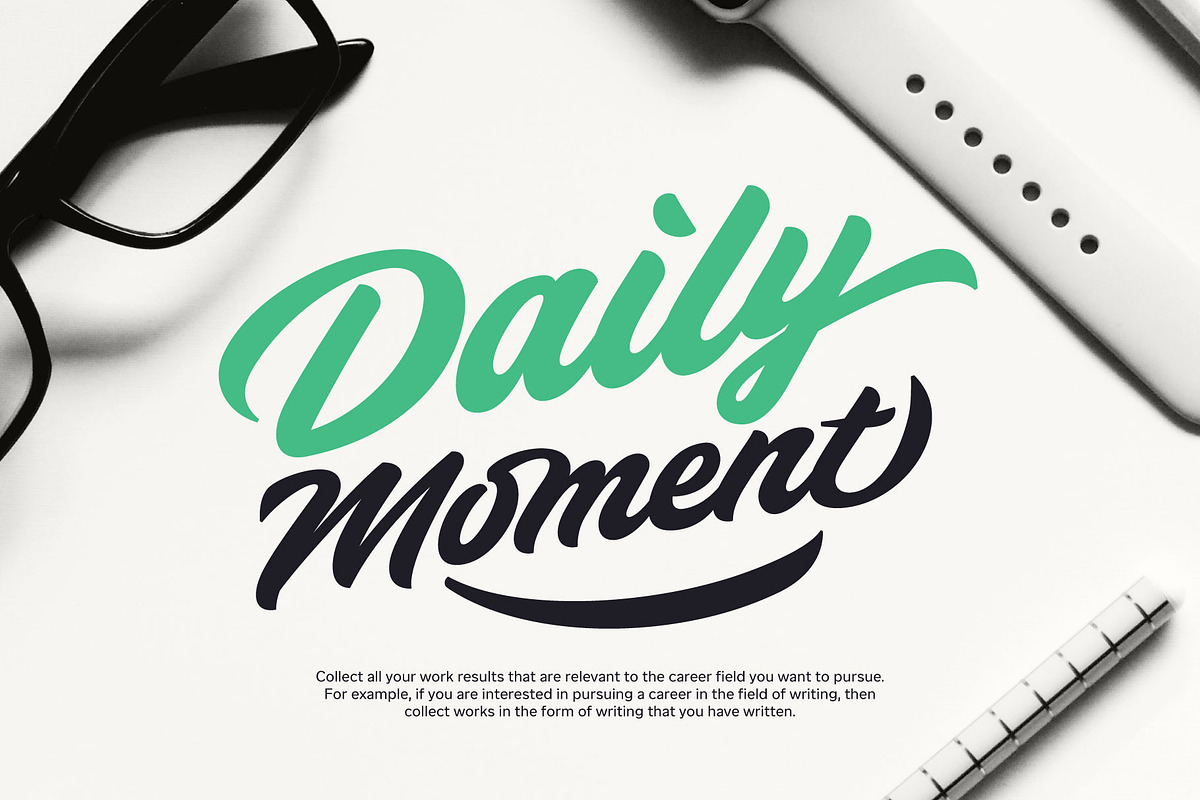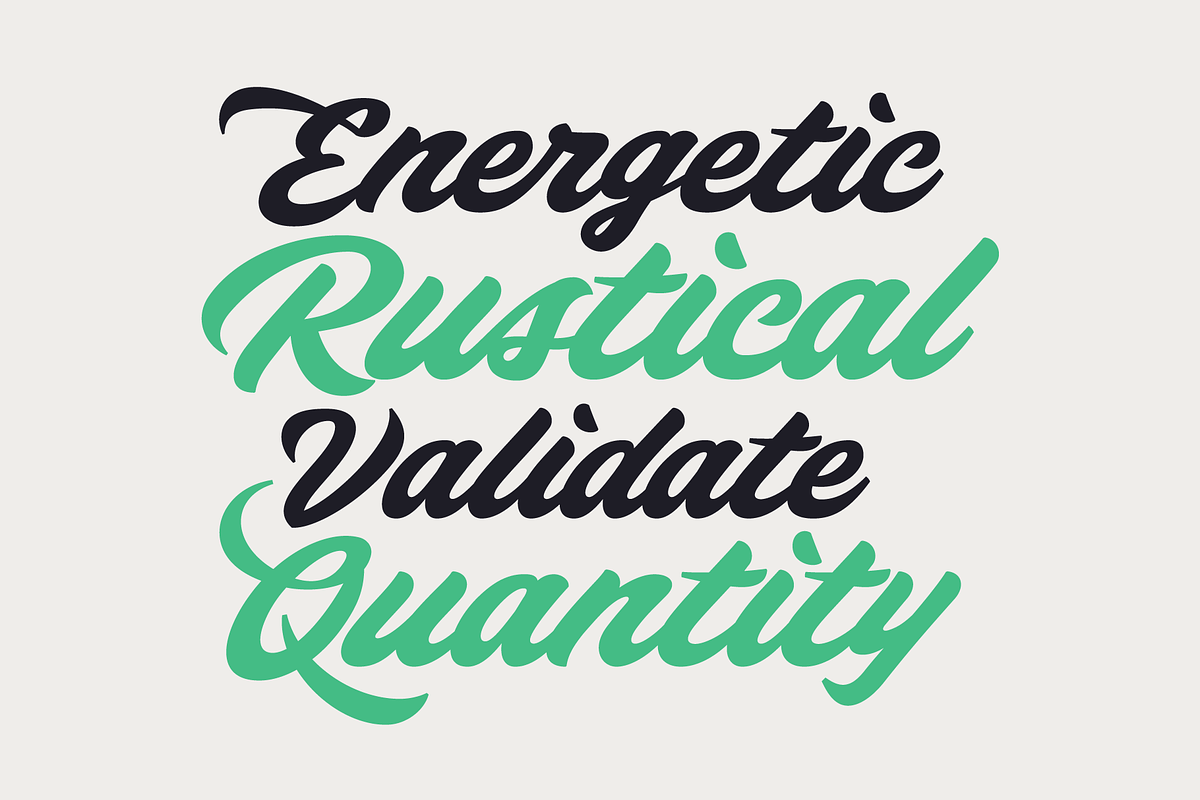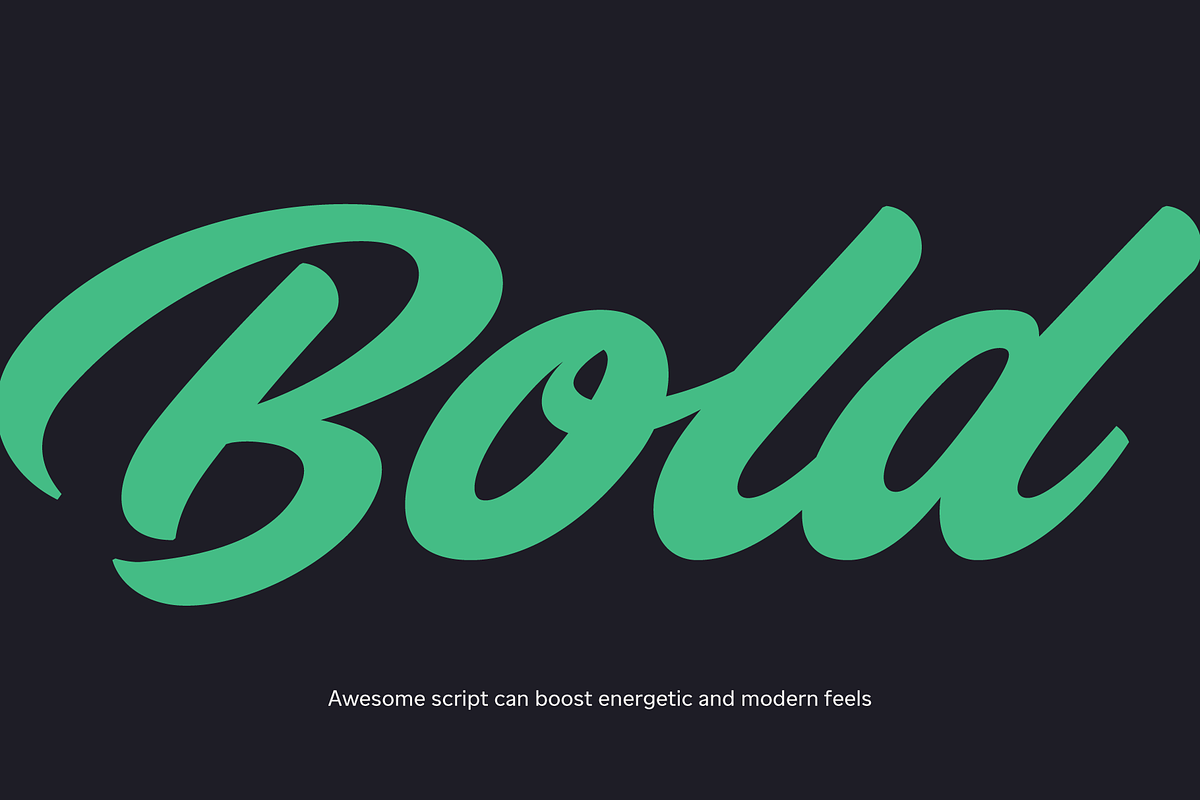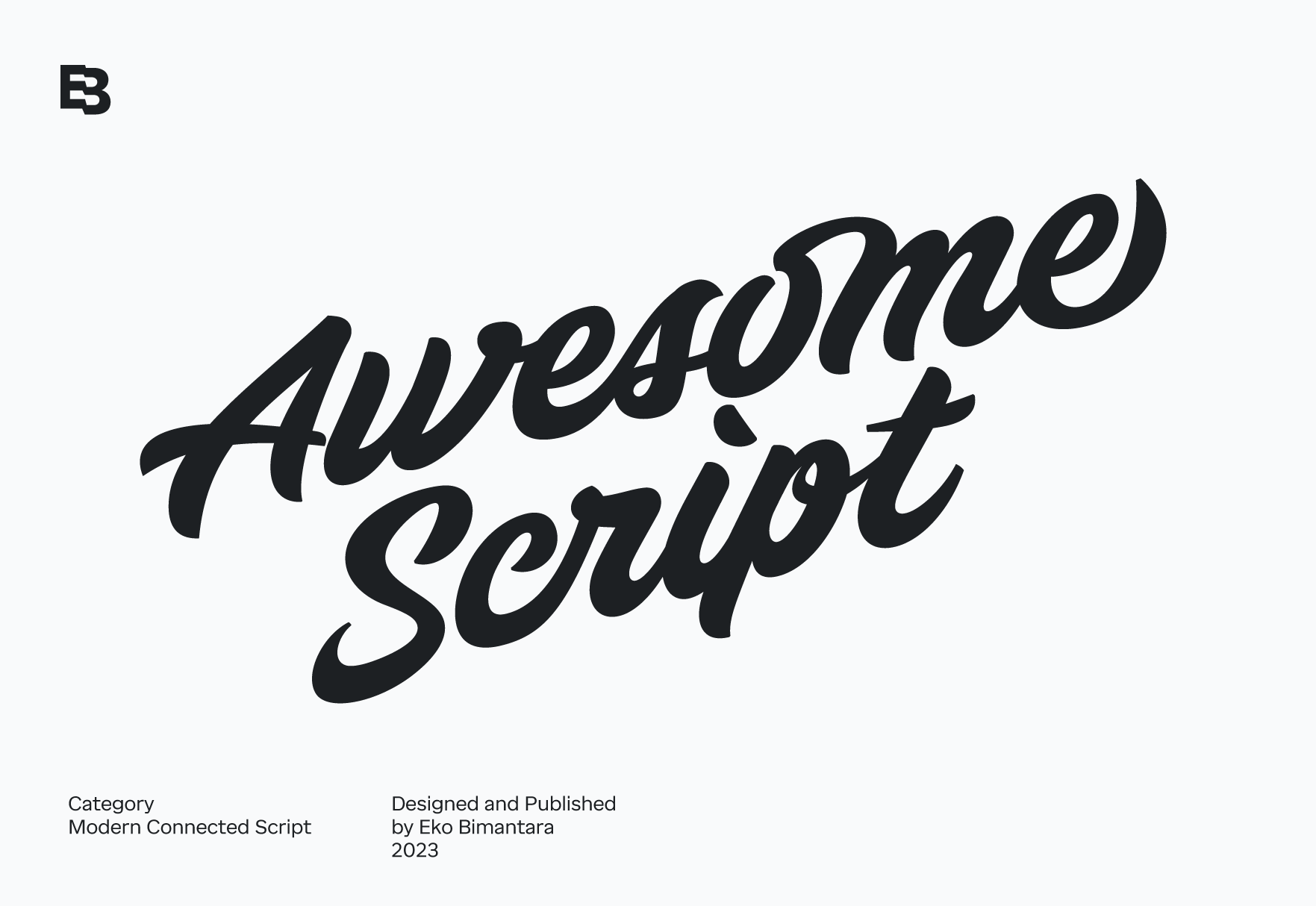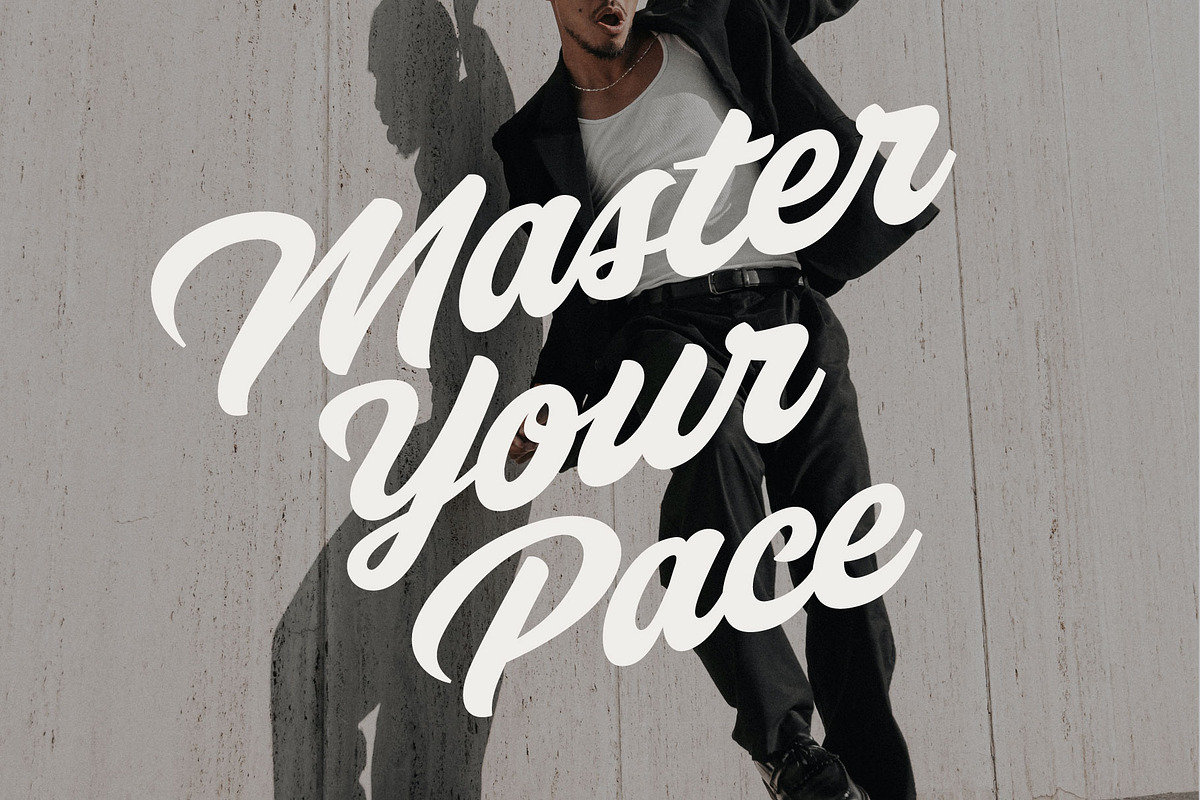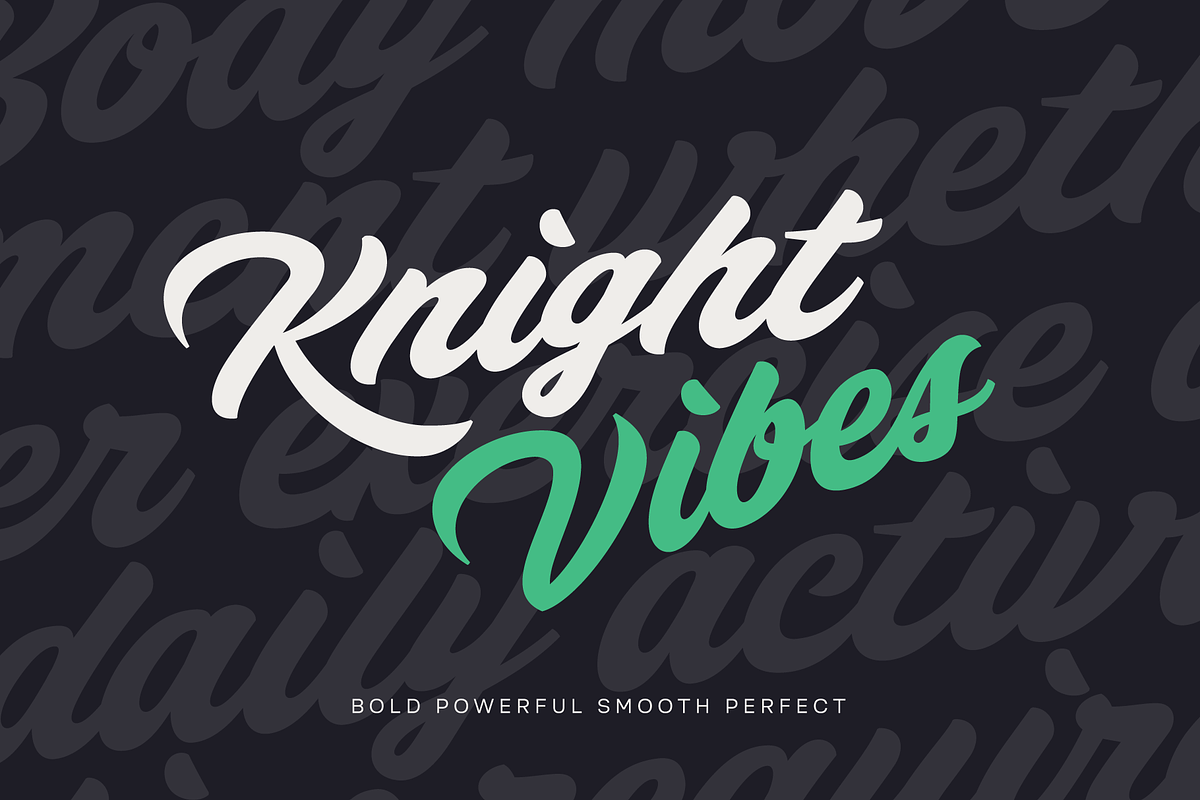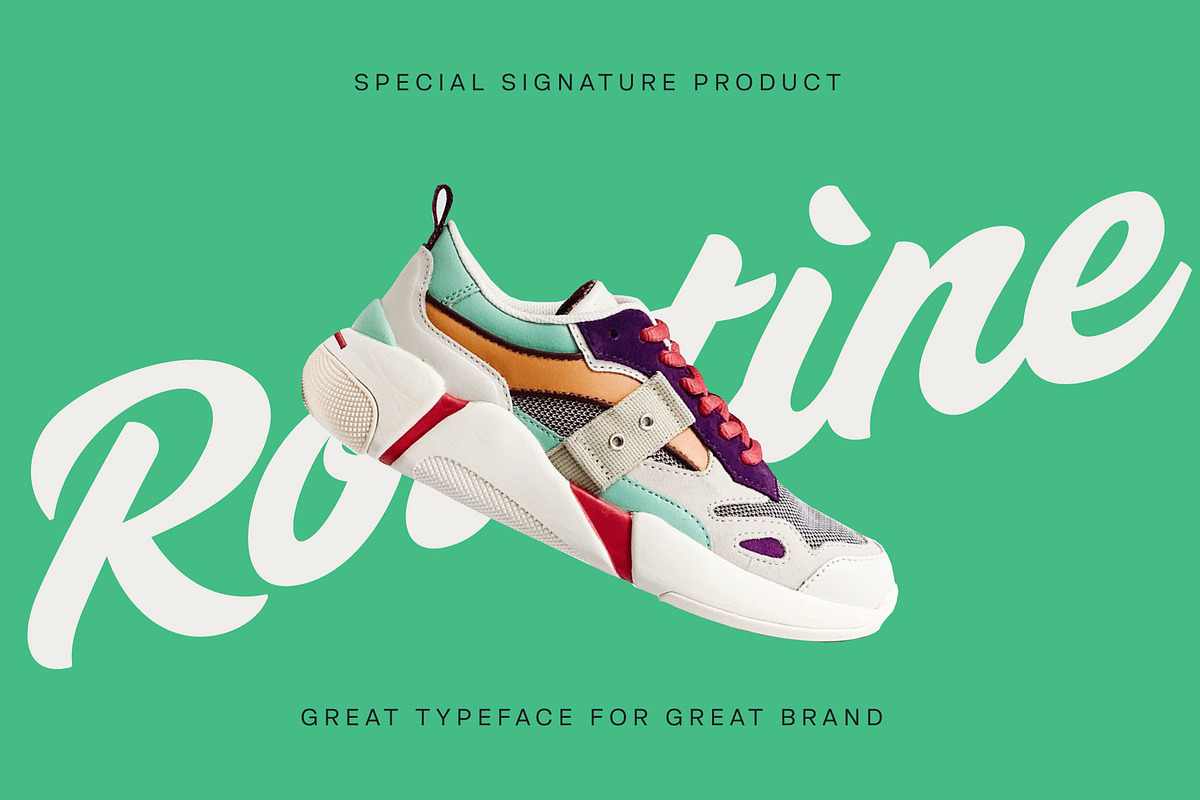
Awesome Script; Modern Script Font
Awesome Script is a modern and dynamic script font that brings energy to any design. Its bold, swashy, and smooth strokes exude a modern vibe, enhanced by a variety of alternate characters. This font is an excellent fit for display purposes, large headers, and various layout designs across logos, websites, brand identities, product packaging, and extensive graphic design projects. Its versatility and dynamic nature make Awesome Script an ideal choice for creative and expressive designs that need a contemporary flair.